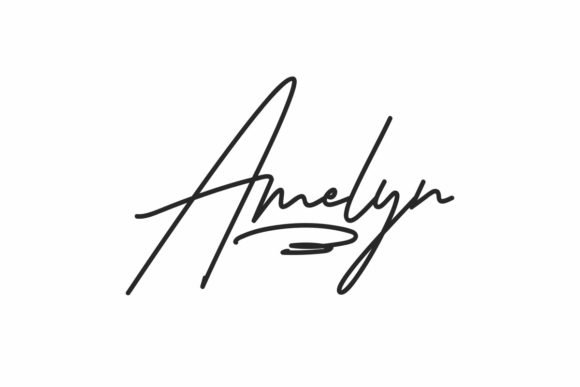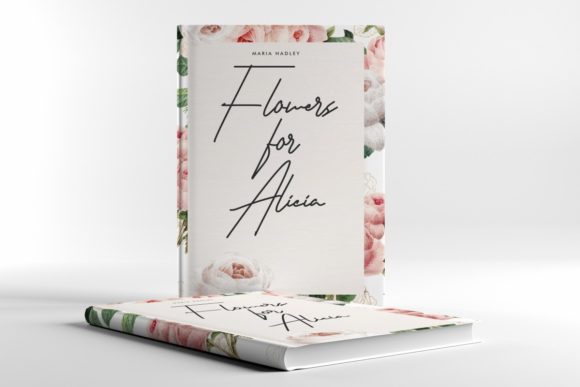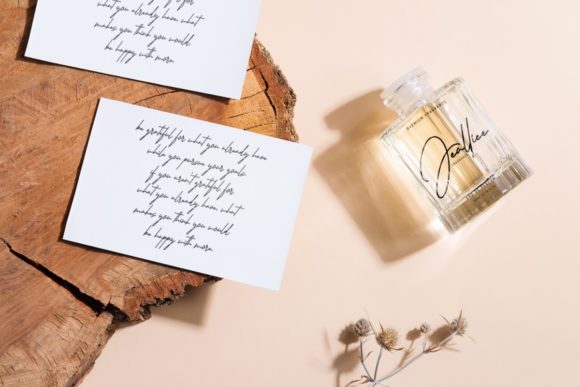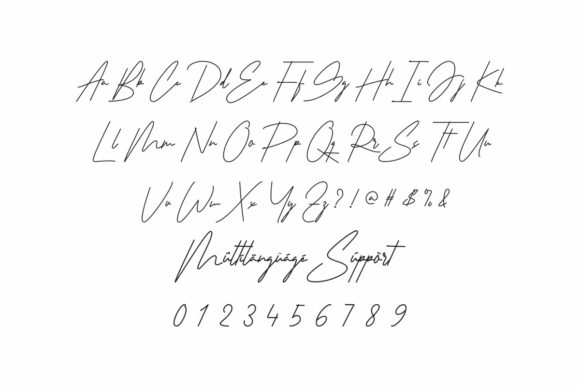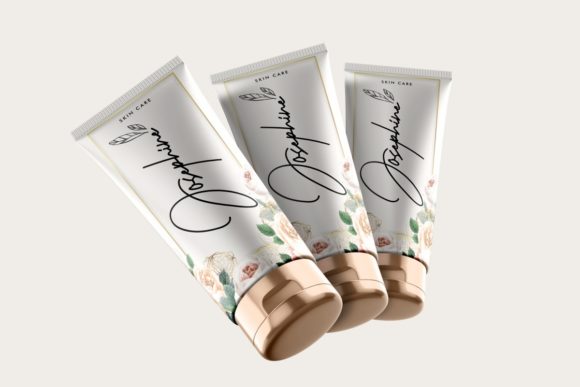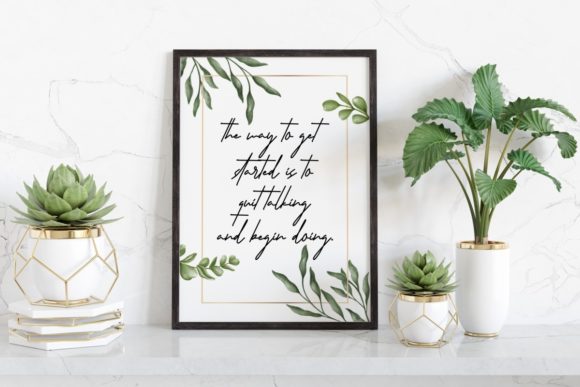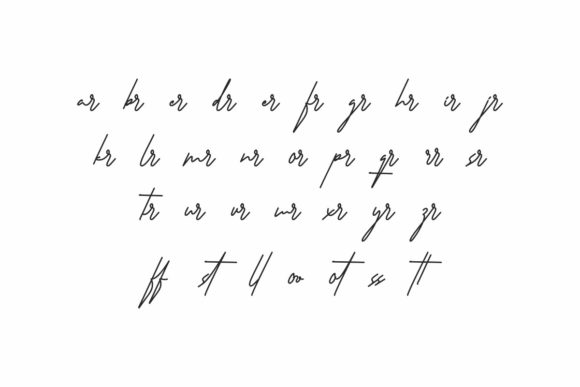
Discover the Elegance of Amelyn Font
Have you ever been browsing through a beautifully designed website or magazine, and suddenly, you’re struck by the simplicity and sophistication of the typography? That’s exactly what happens when you use the right font. For me, it’s a moment that sparks creativity and sets my imagination running wild. And today, I want to share with you a font that will do the same for you: the lovely Amelyn Font.
Amelyn Font is a delicate script font that exudes elegance and class, perfect for those who need a beautiful and refreshing look to their designs. Crafted with precision, this font is a valuable addition to any designer’s toolkit, offering a level of sophistication that’s hard to find elsewhere. With its PUA encoding, you can easily access all glyphs and swashes, making it a breeze to add a personal touch to your designs.
Amelyn Font Key Features
- Unique Characteristics: Elegant, modern, and highly legible, making it suitable for body text and titles
Amelyn Font Review
Overall, I was quite impressed with the Amelyn Font. Here are some of the things that worked well for me:
- ✨ Elegant and refined design, perfect for high-end branding or luxury products
- ✨ Wide range of weights and styles, allowing for great flexibility in layout and design
- ✨ Excellent legibility, making it easy to read for extended periods of time
However, there are a few limitations that I felt were worth noting:
- ⚠️ Limited support for non-Latin scripts, which could be a concern for global brands or international audiences
- ⚠️ Some of the weights and styles may feel a bit too similar, making it difficult to create a clear hierarchy of information
Overall, I think the Amelyn Font is a solid choice for anyone looking for a high-end, elegant font. While it may not be perfect for every situation, its strengths far outweigh its weaknesses. With a bit of careful planning and attention to detail, I think the Amelyn Font could be a great addition to any design project.
Some tips for getting the most out of the Amelyn Font include:
– Using it for titles and headings to create visual hierarchy.
– Pairing it with other fonts to create a unique typography style.
– Experimenting with different font sizes and styles to add emphasis to your text.
Common use cases for the Amelyn Font include:
– Creating eye-catching social media graphics and advertisements.
– Designing custom typography for logos and branding materials.
– Adding a touch of elegance and sophistication to your designs.
Alternatives to Amelyn Font
Montserrat is a modern sans-serif font designed by Julieta Ulanovsky. It is suitable for digital design, logos, and body text. Montserrat is more geometric and has a stronger grid structure compared to Amelyn Font, which is more rounded and elegant. Use Montserrat when you need a clean, modern look for your design.
Merriweather is a classic serif font designed by Eben Sorkin. It is ideal for print design, book covers, and formal documents. Merriweather has a more traditional and elegant feel compared to Amelyn Font, which is more contemporary and playful. Use Merriweather when you need a sophisticated and classic look for your design.
Playfair Display is an elegant serif font designed by Claus Eggers Sørensen. It is suitable for luxury branding, magazine titles, and invitations. Playfair Display has a more luxurious and refined feel compared to Amelyn Font, which is more versatile and approachable. Use Playfair Display when you need to convey high-end elegance in your design.
Lato is a modern sans-serif font designed by Łukasz Dziedzic. It is ideal for digital design, logos, and body text. Lato is more minimalist and has a simpler structure compared to Amelyn Font, which is more detailed and ornate. Use Lato when you need a clean and simple look for your design.